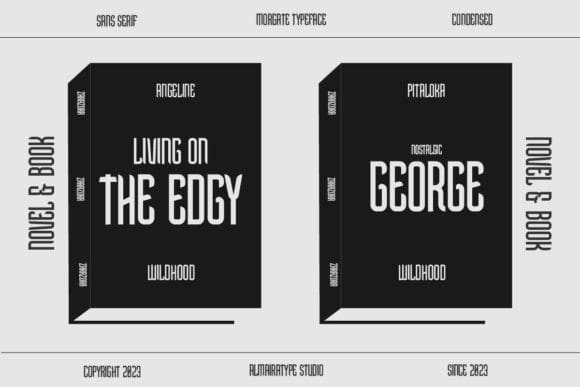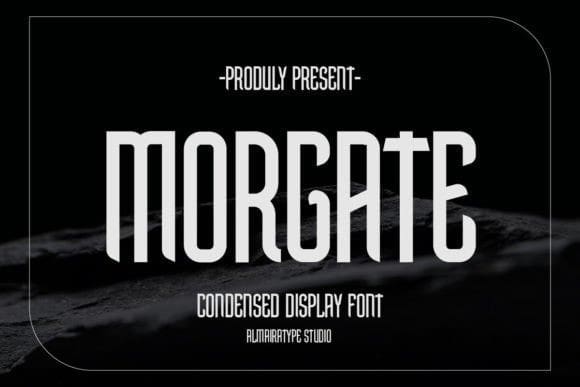
Morgate Font
Morgate Font is a cool and modern condensed display font with a sporty touch. It is suitable for logos, esports, labels, movie titles, SVG crafts, Etsy branding, printing, invitations, t-shirts, web, Cricut, Christmas, and many other ideas.